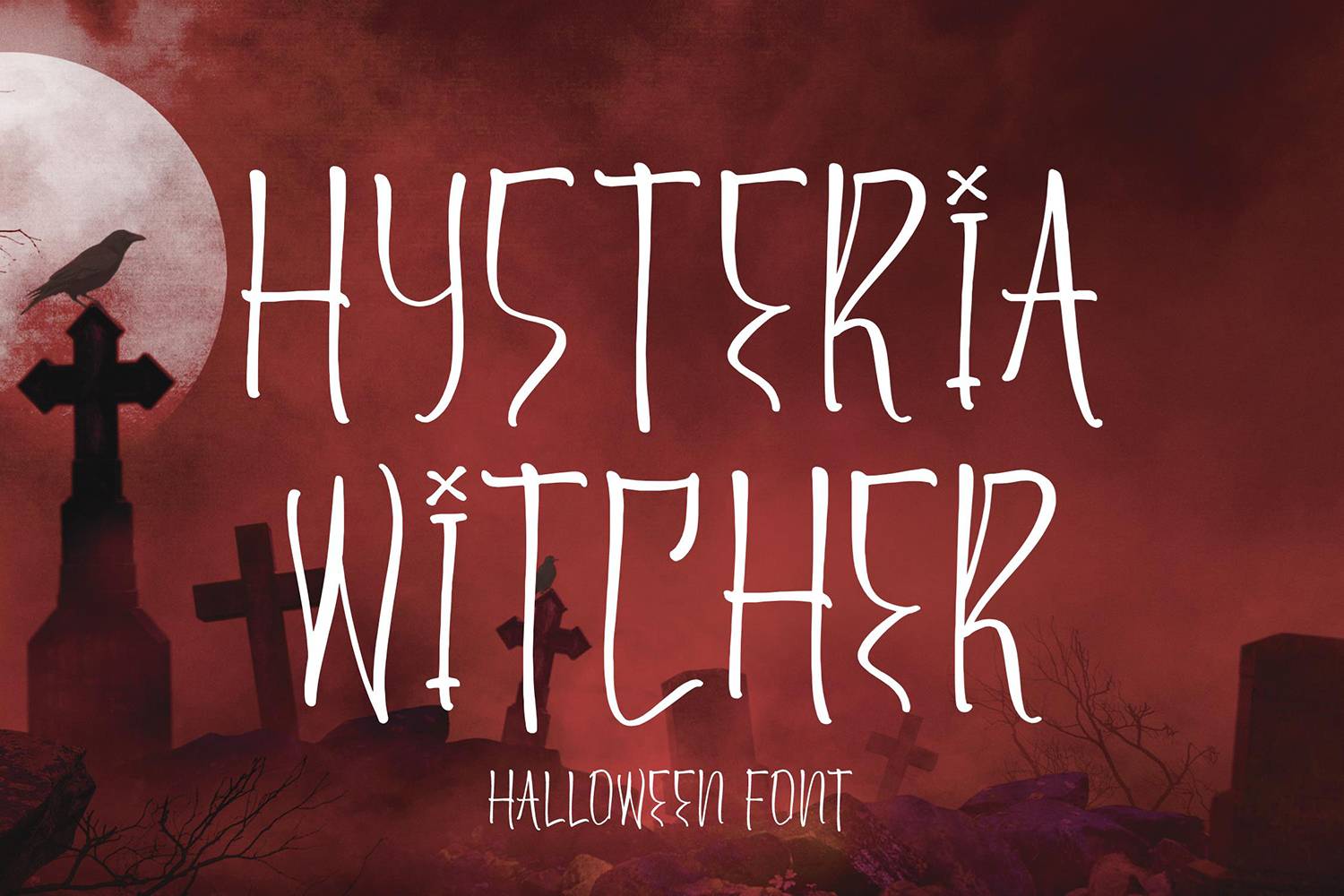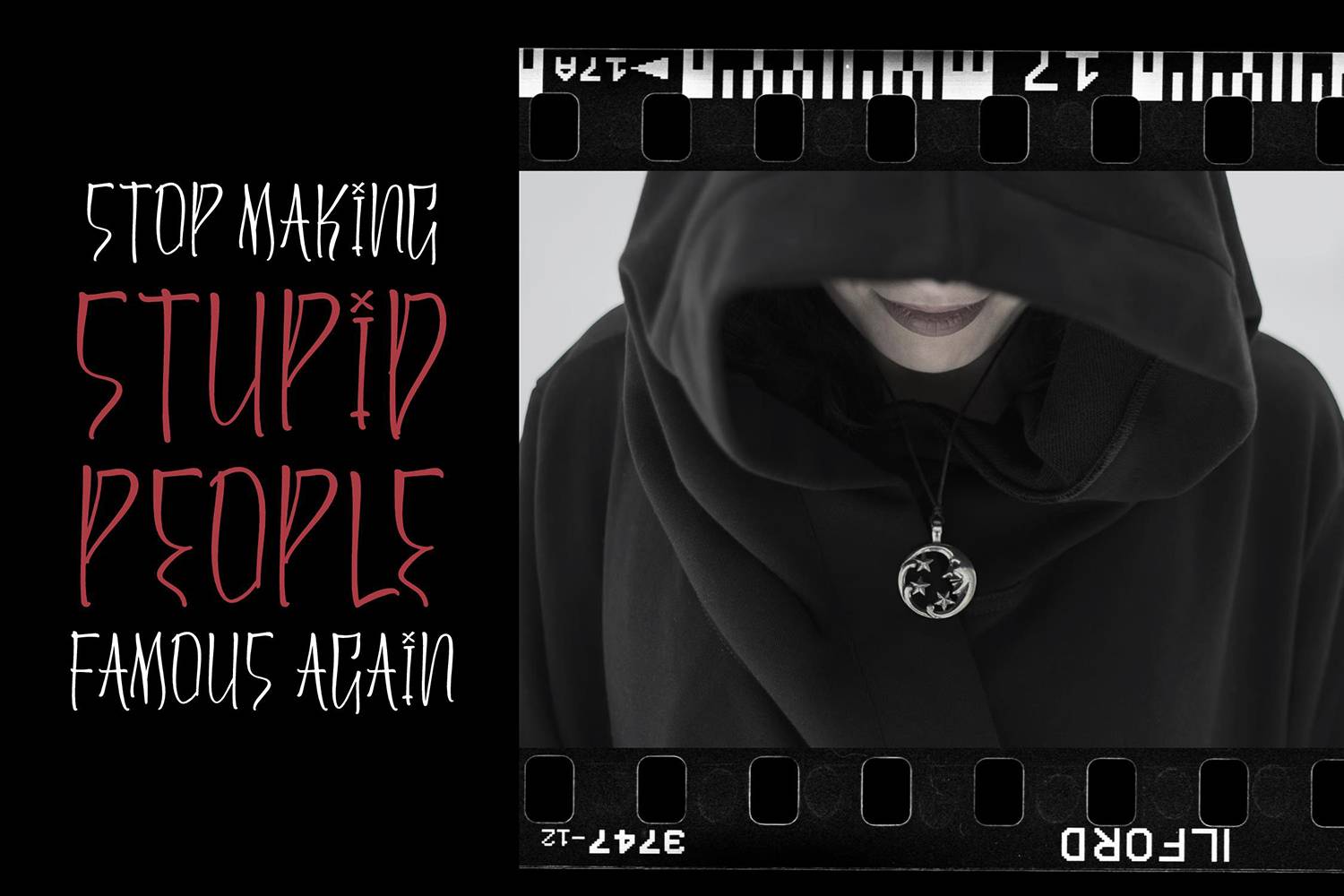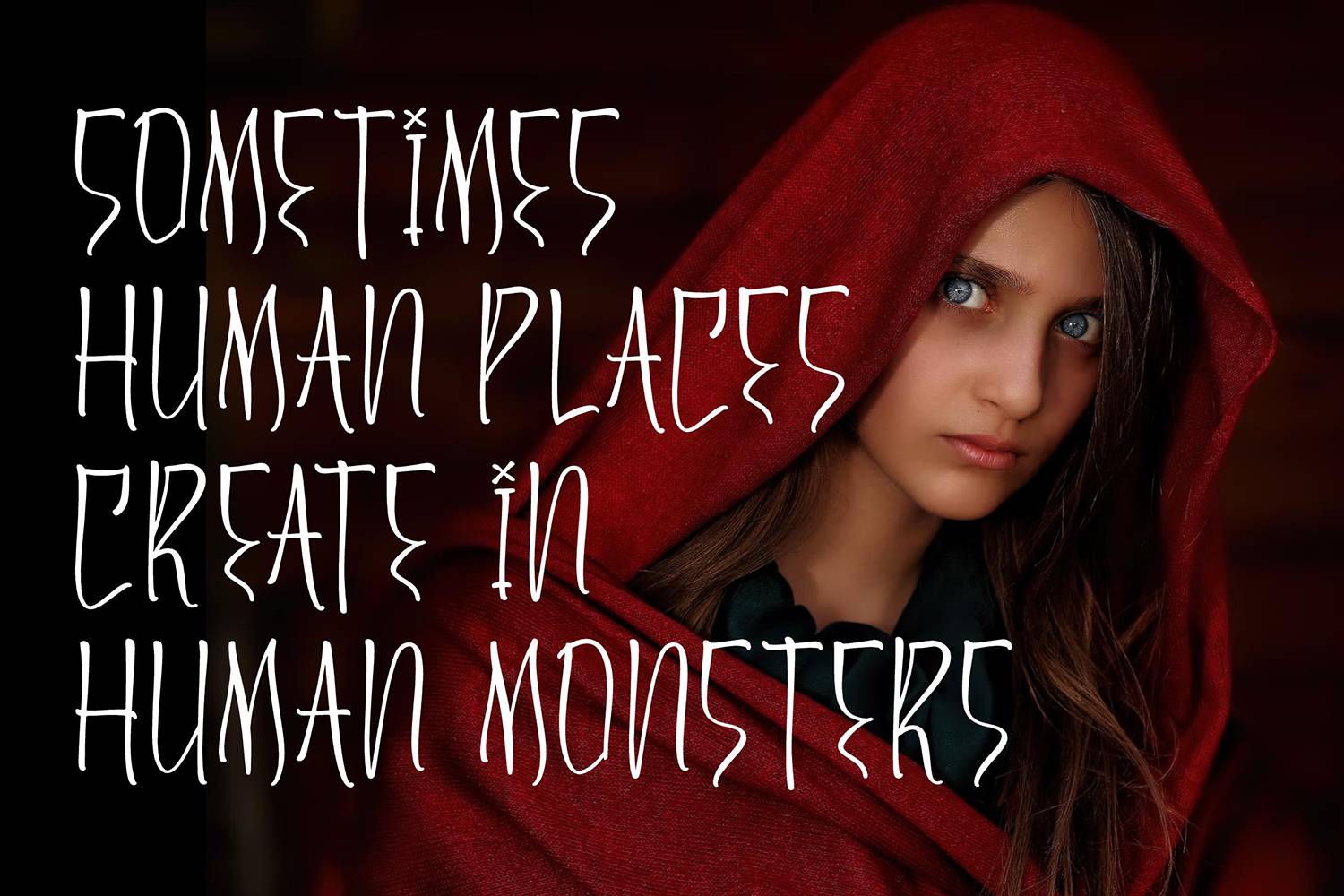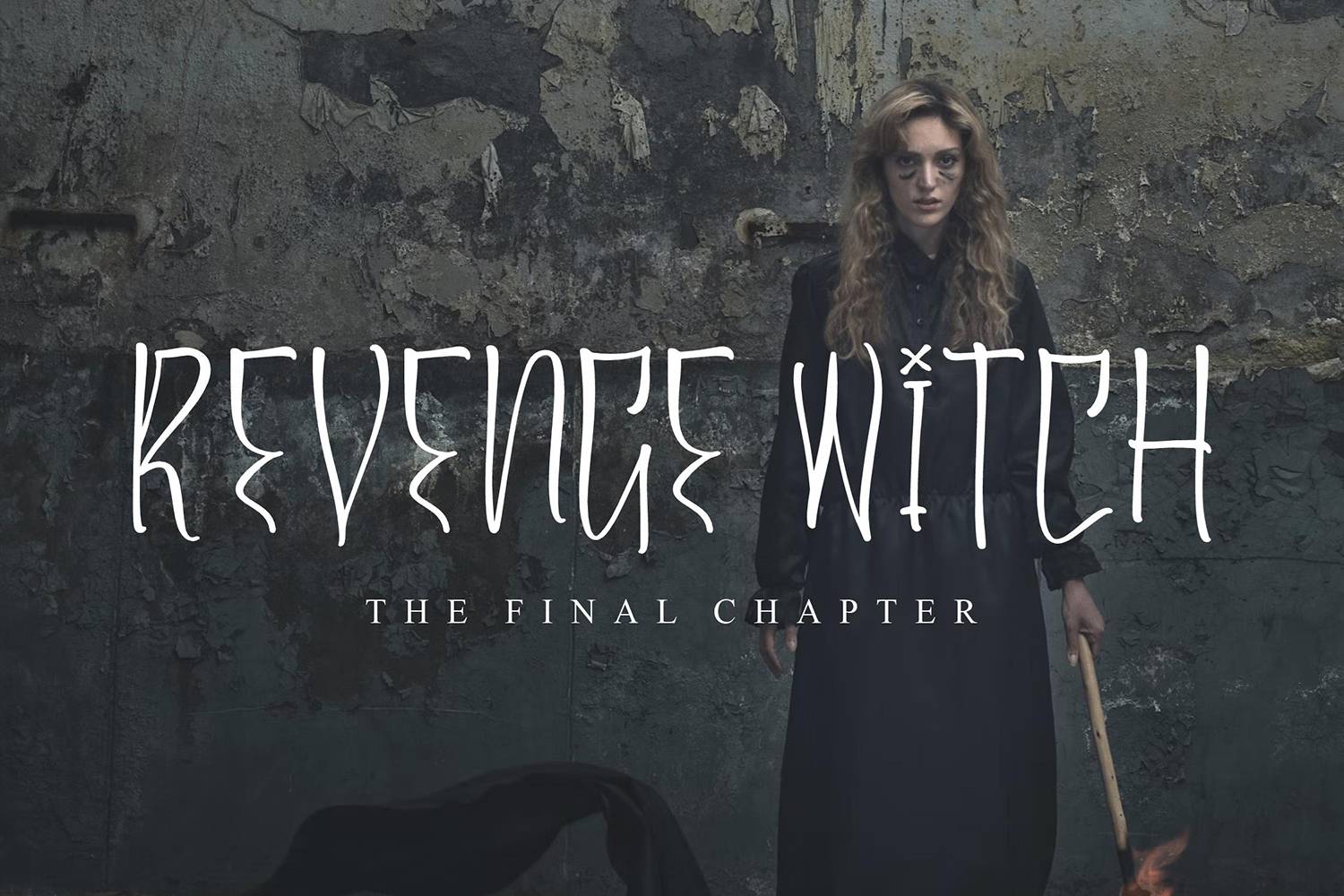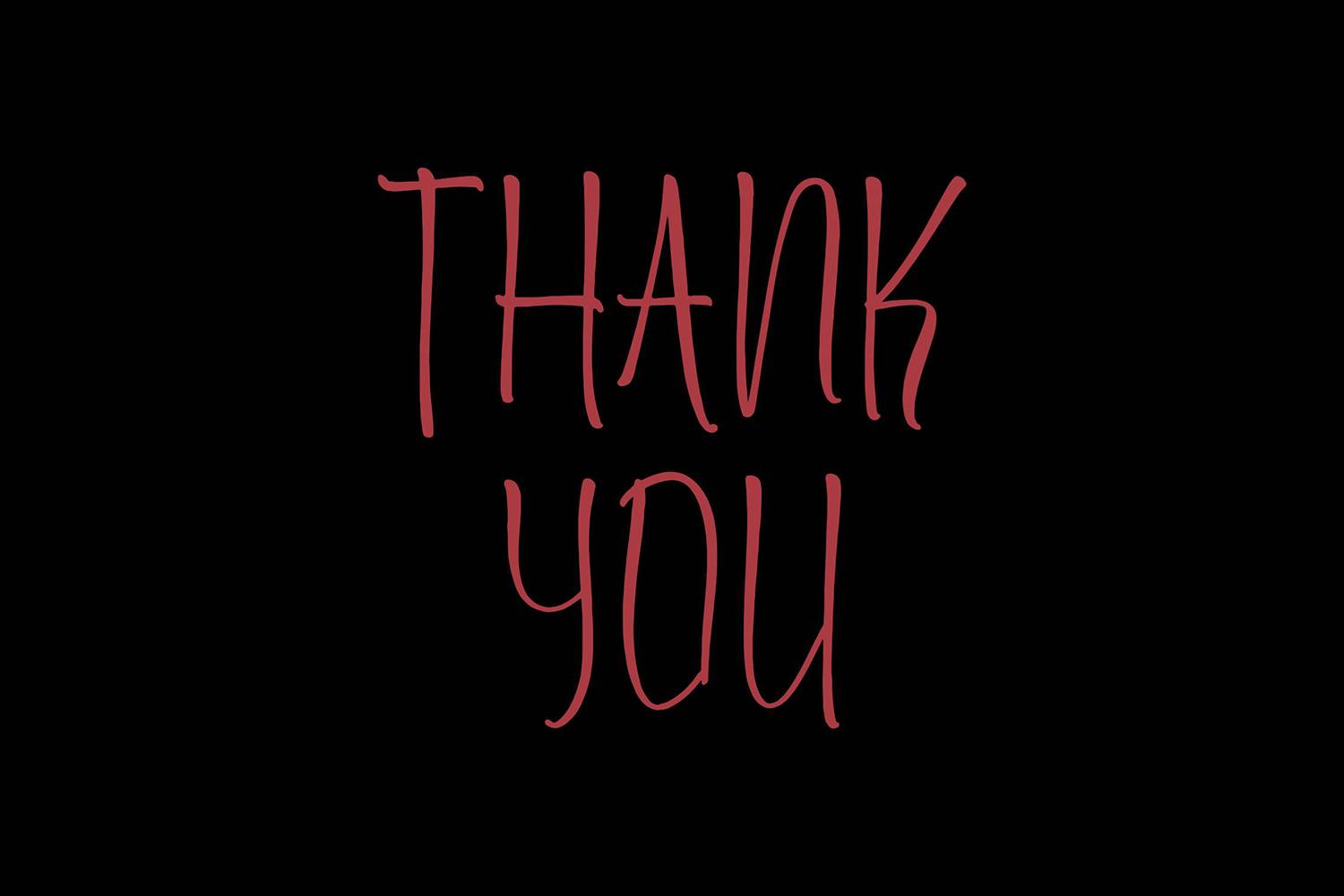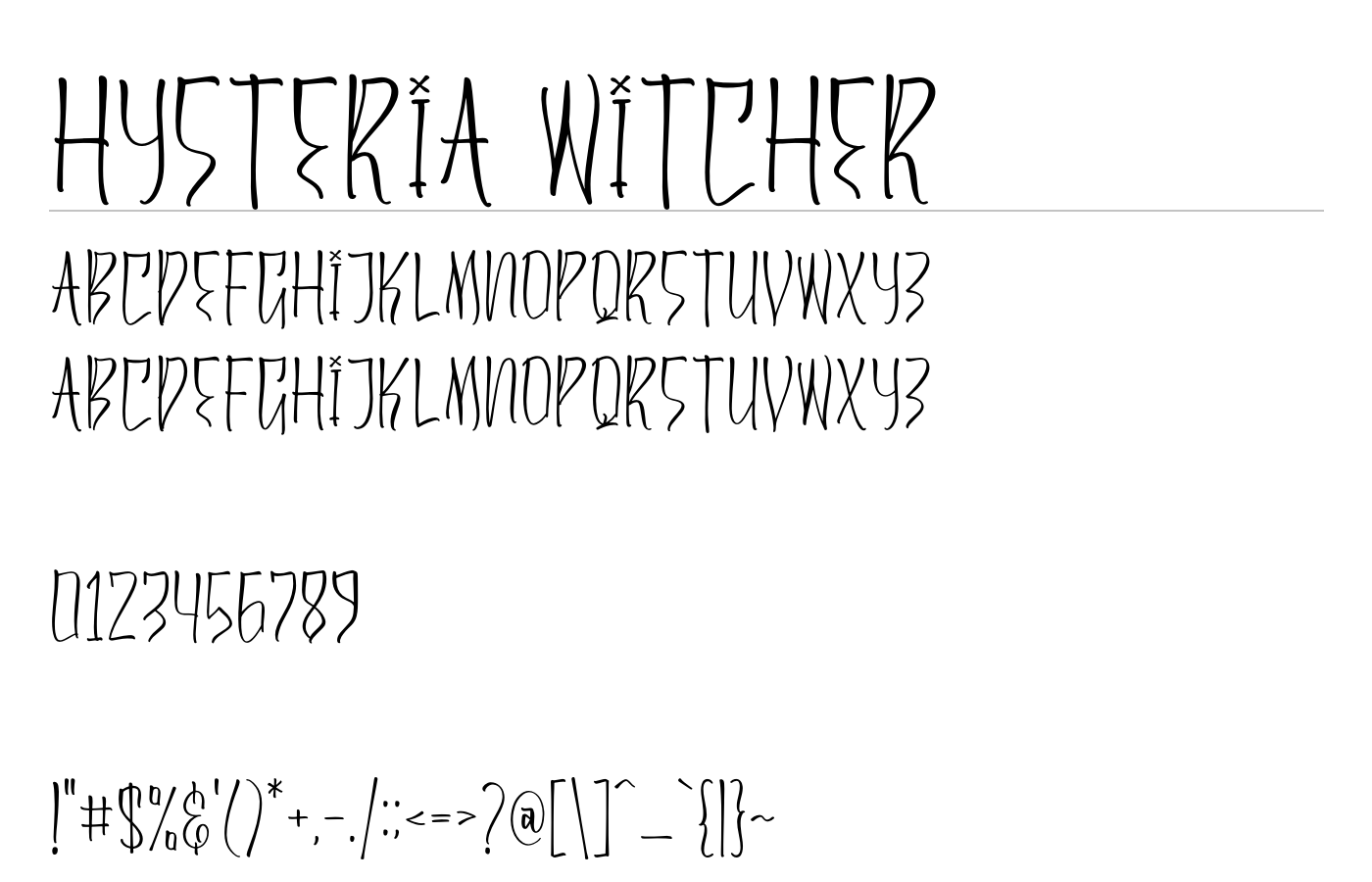
Hysteria Witcher is a slender, whimsical handwritten font characterized by tall, narrow letterforms with playful irregularities and subtle decorative touches, such as unique crossbars and quirky curves. Its light weight and airy spacing give it a delicate, eerie charm, making it ideal for mystical, fantasy, or Halloween-themed designs that seek a quirky yet slightly mysterious personality. This font works best in headlines, posters, and branding where an unconventional, enchanting vibe is desired.
Hysteria Witcher Font
About Hysteria Witcher Font